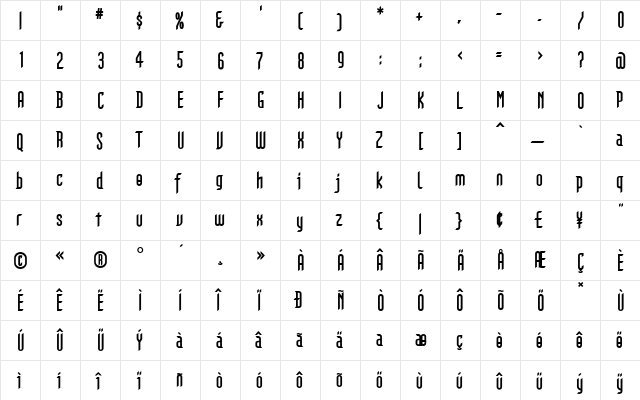
Gothikka Bold
Design Context for Gothikka Typeface
Gothikka offers clean, dependable letterforms without strong stylistic allegiance, making it a practical choice for designers who need flexibility. The heavy weight commands attention and anchors typographic hierarchies.